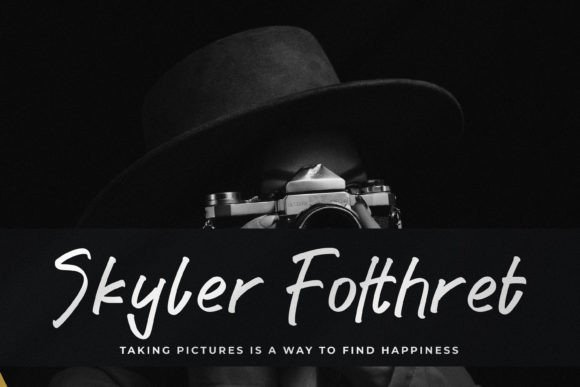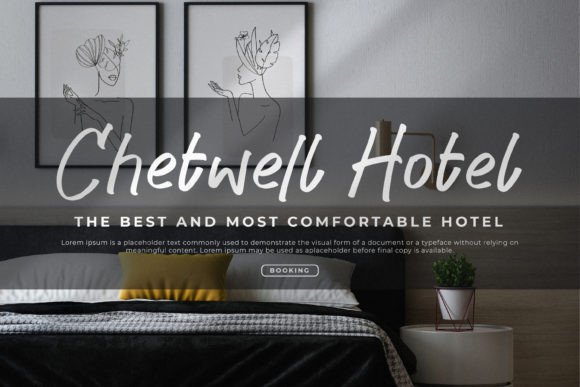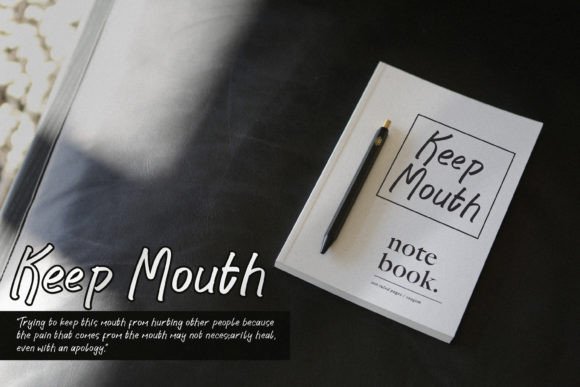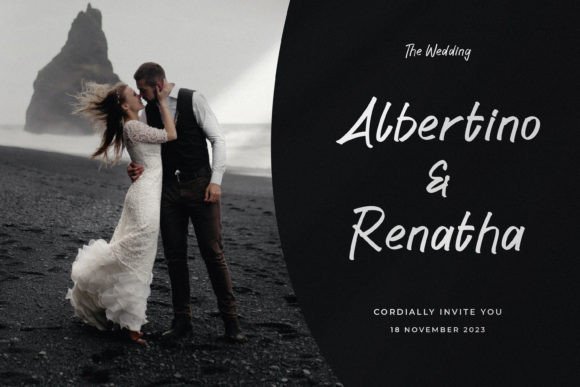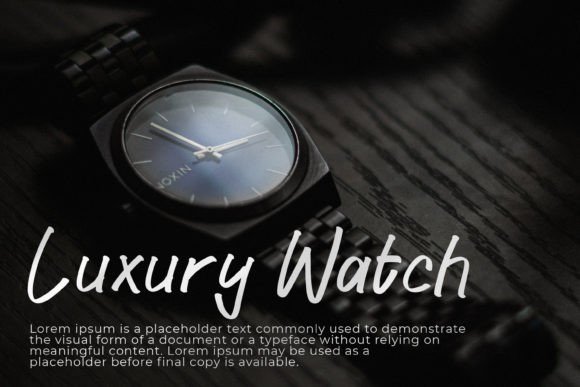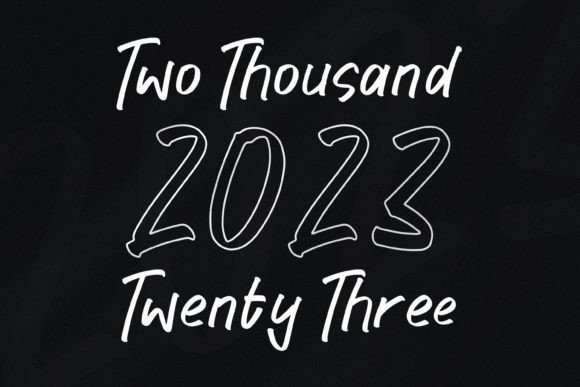
Introduction to Liquell Monetta Font
Liquell Monetta is an exquisite handwritten font, masterfully designed to become a true favorite.
Key Features of Liquell Monetta Font
Why Choose Liquell Monetta Font?
Liquell Monetta Font offers exceptional quality and versatility, making it a valuable addition to your design toolkit. Whether you’re creating for personal projects or commercial use, Liquell Monetta Font delivers professional results.